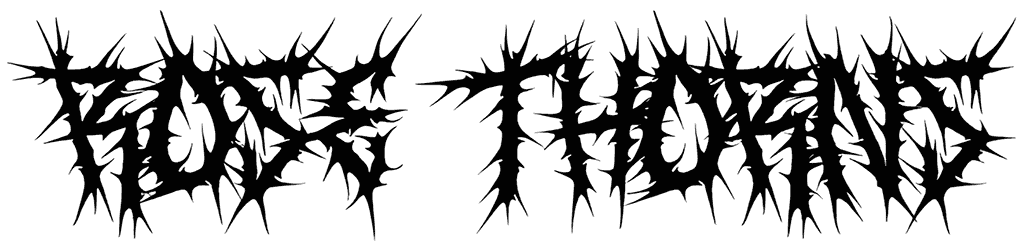
JMH Horror Font
JMH Horror would make a great choice for your Halloween party flyers! It’s a typeface belonging to the horror font category that comes with 4 different font files. JMH Horror is a spooky, vibrating, bold font that doesn’t support lowercase. Still, it’s one of the best to go within your cartoons, comic books, costume party posters as well as many other things.
Designed by: Joorgemoron